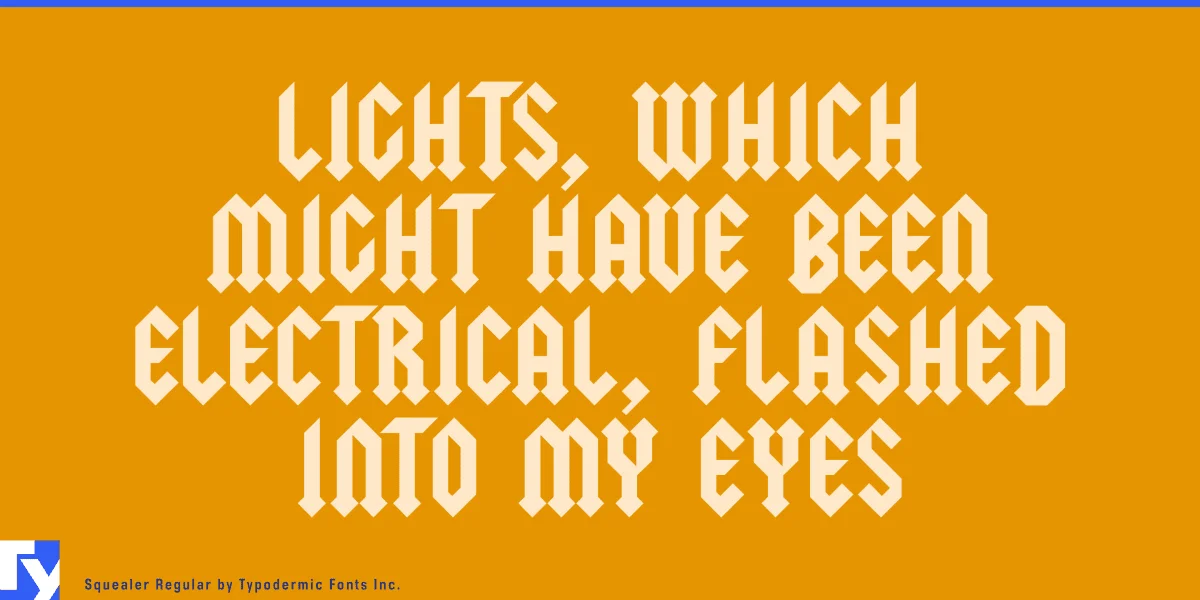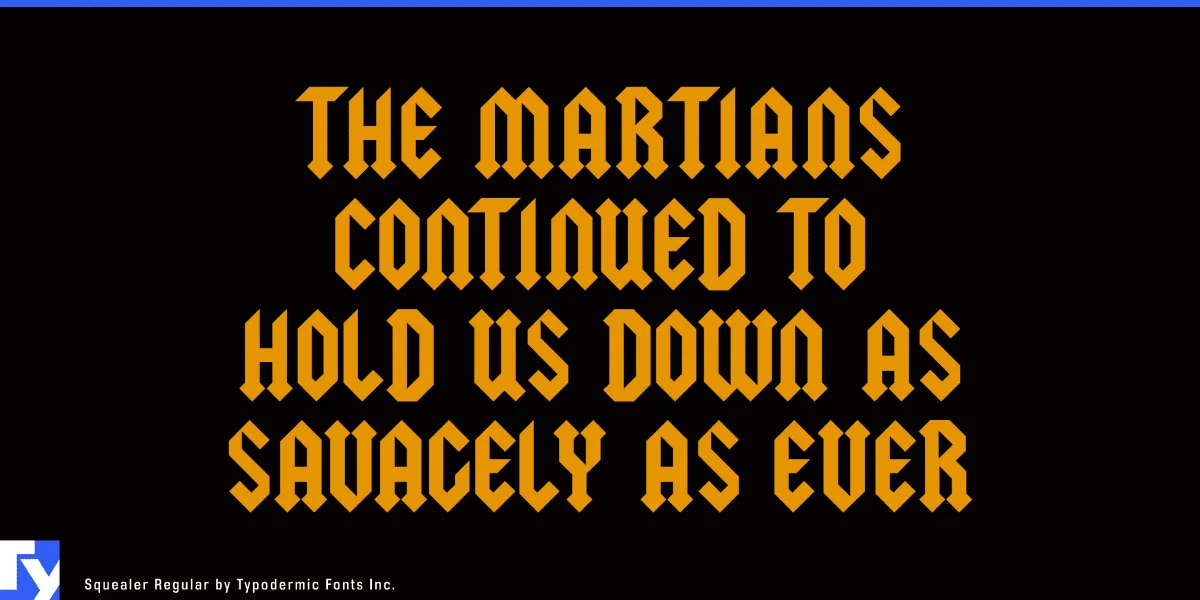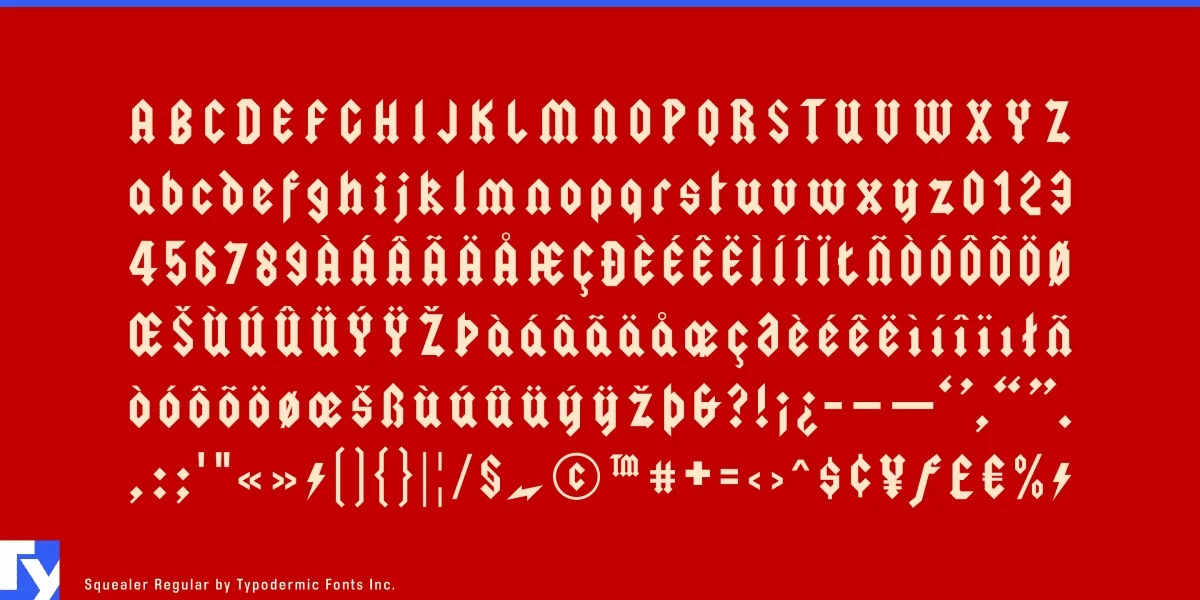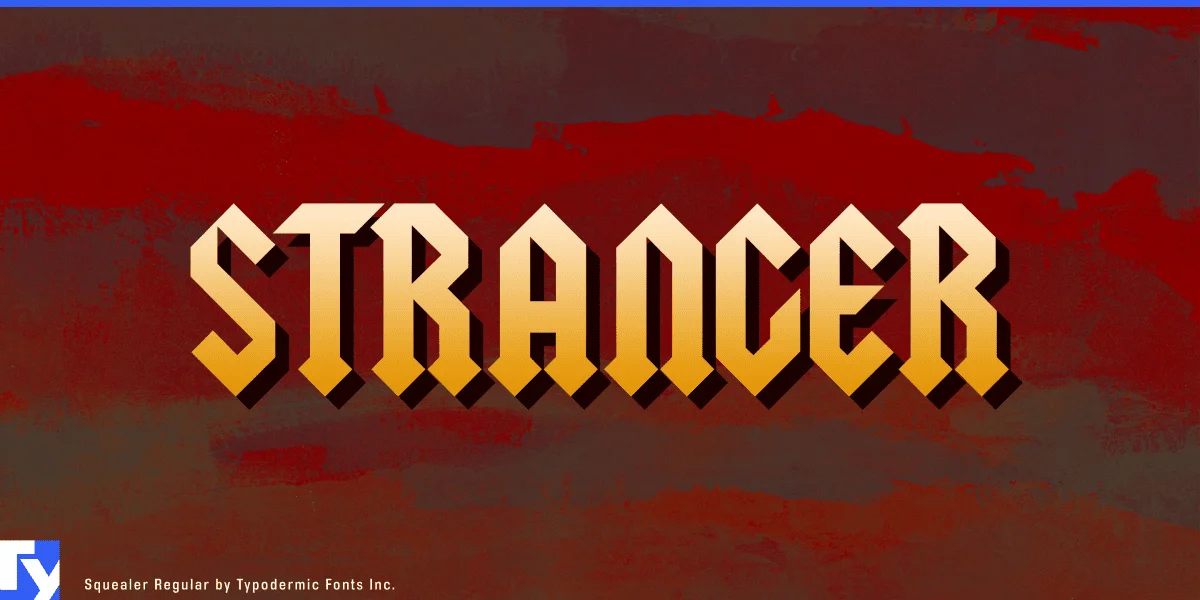
Squealer is a blackletter hard rock headliner. Its powerful letterforms and chiseled edges will give your message a punch. Some Latin-based European writing systems are supported, including the following languages. Afaan Oromo, Afar, Afrikaans, Albanian, Alsatian, Aymara, Basque, Bemba, Bikol, Breton, Cape Verdean, Creole, Catalan, Cebuano, Chamorro, Chavacano, Danish, Dawan, Dholuo, Dutch, English, Estonian, Faroese, Fijian, Filipino, Finnish, French, Frisian, Friulian, Galician, Genoese, German, Guadeloupean Creole, Haitian Creole, Hiligaynon, Icelandic, Ilocano, Indonesian, Irish, Italian, Jamaican, Kaqchikel, Kikongo, Kinyarwanda, Kirundi, Lombard, Low Saxon, Luxembourgish, Makhuwa, Malay, Ndebele, Neapolitan, Norwegian, Novial, Occitan, Papiamento, Piedmontese, Portuguese, Quechua, Rarotongan, Romansh, Sango, Saramaccan, Sardinian, Scottish Gaelic, Shona, Sicilian, Silesian, Slovak, Slovenian, Somali, Sotho, Spanish, Swahili, Swazi, Swedish, Tagalog, Tetum, Tshiluba, Tsonga, Tswana, Tumbuka, Uzbek (Latin), Venetian, Võro, Walloon, Waray-Waray, Wayuu, Xhosa, Yapese, Zapotec Zulu and Zuni.